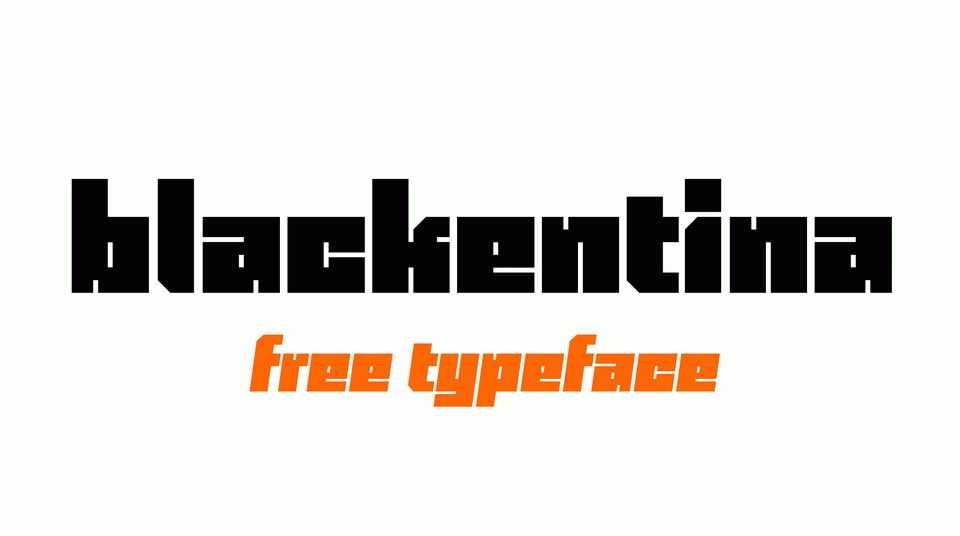
Download Blackentina typeface, an ultra black font family in Regular and Italic styles with an extended language support. Blackentina font works best for loud headlines and posters, covers and other display use.
Designer: Sergiy Tkachenko